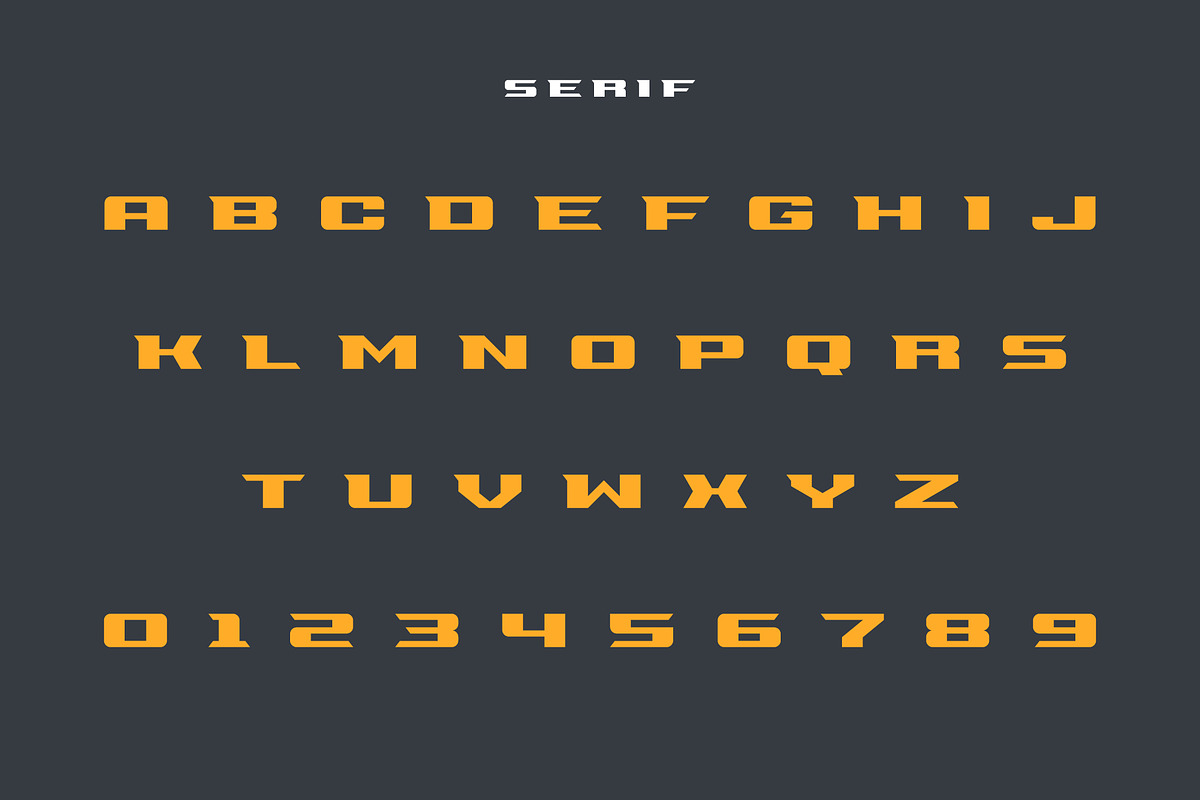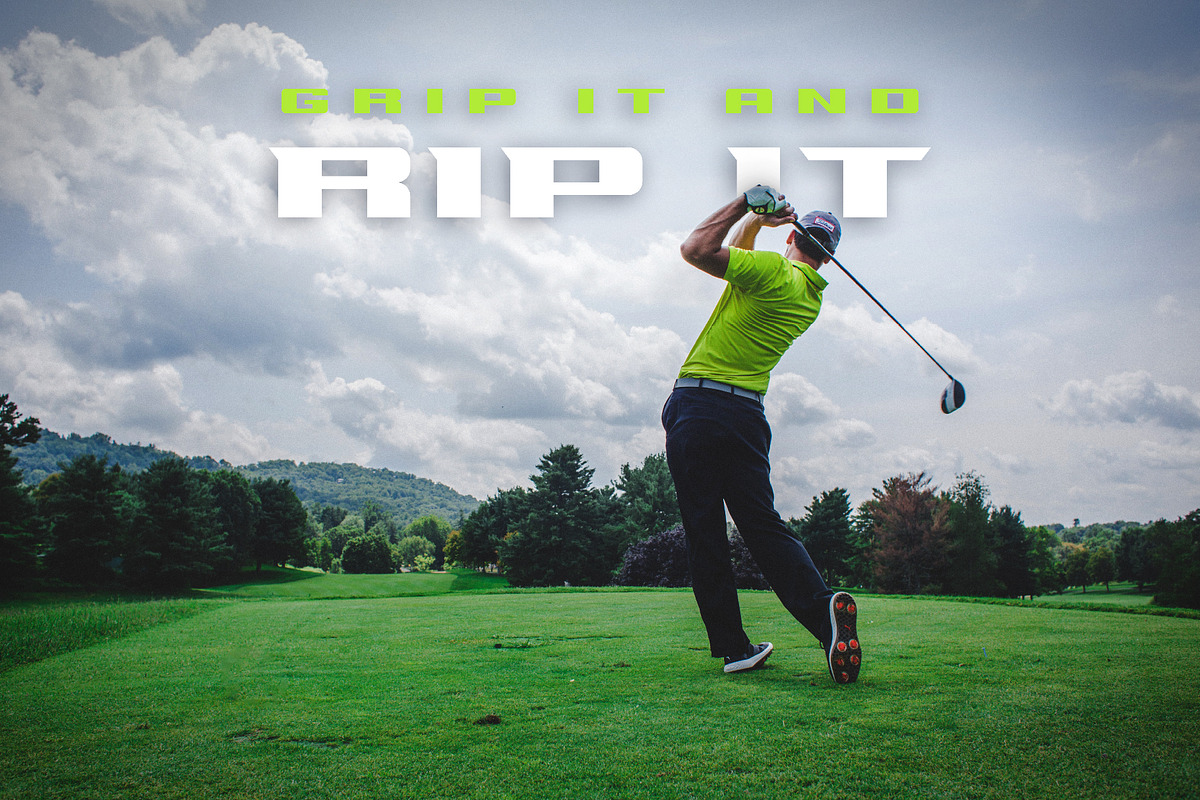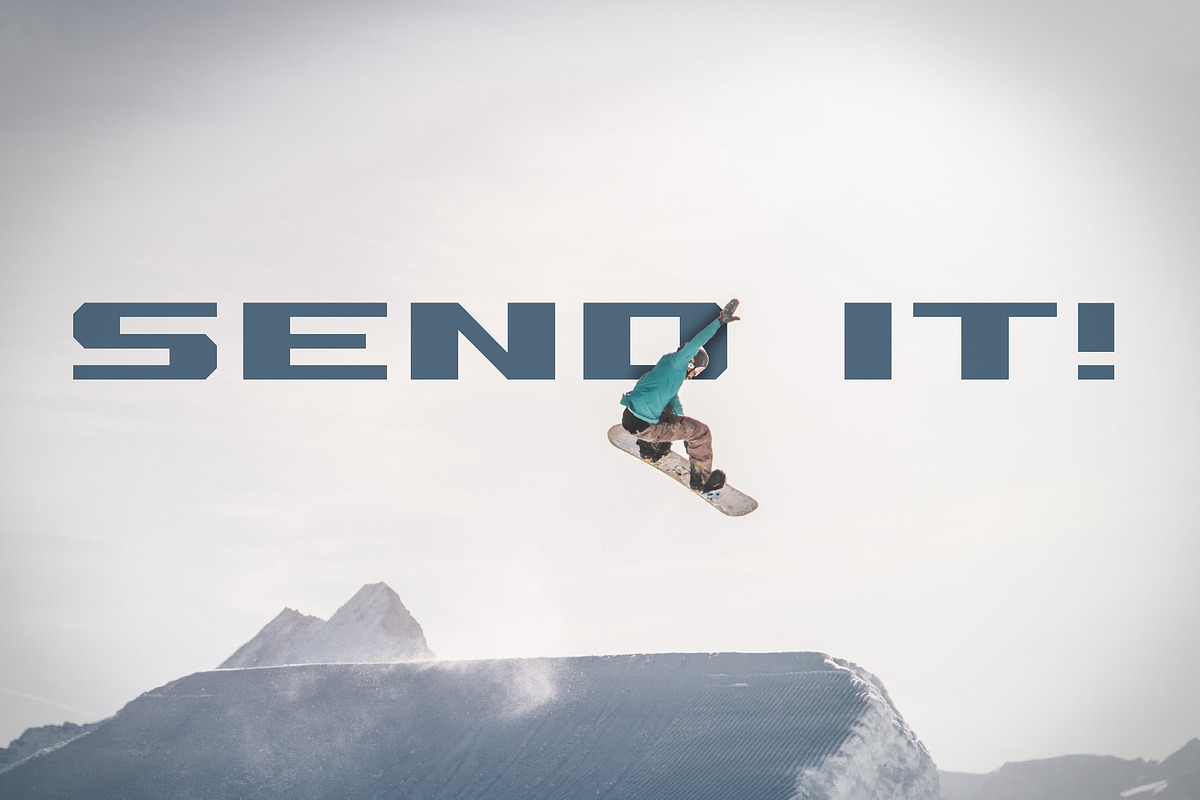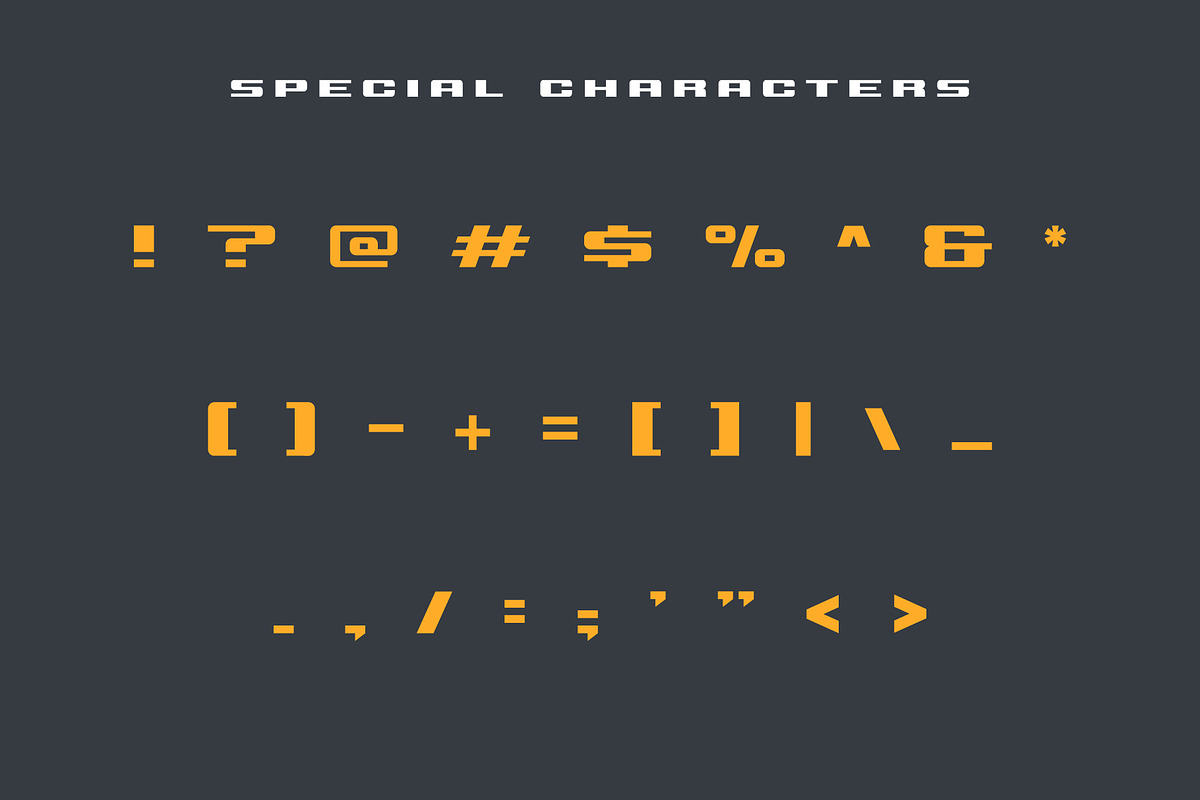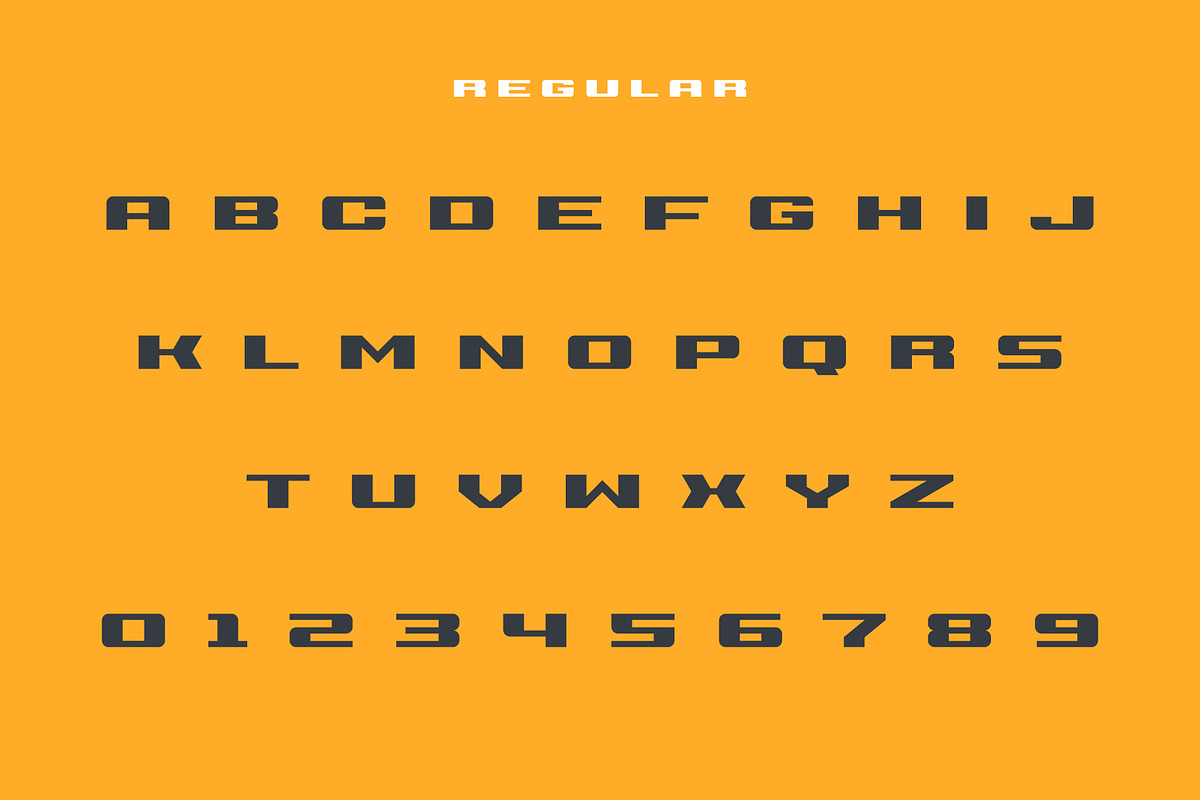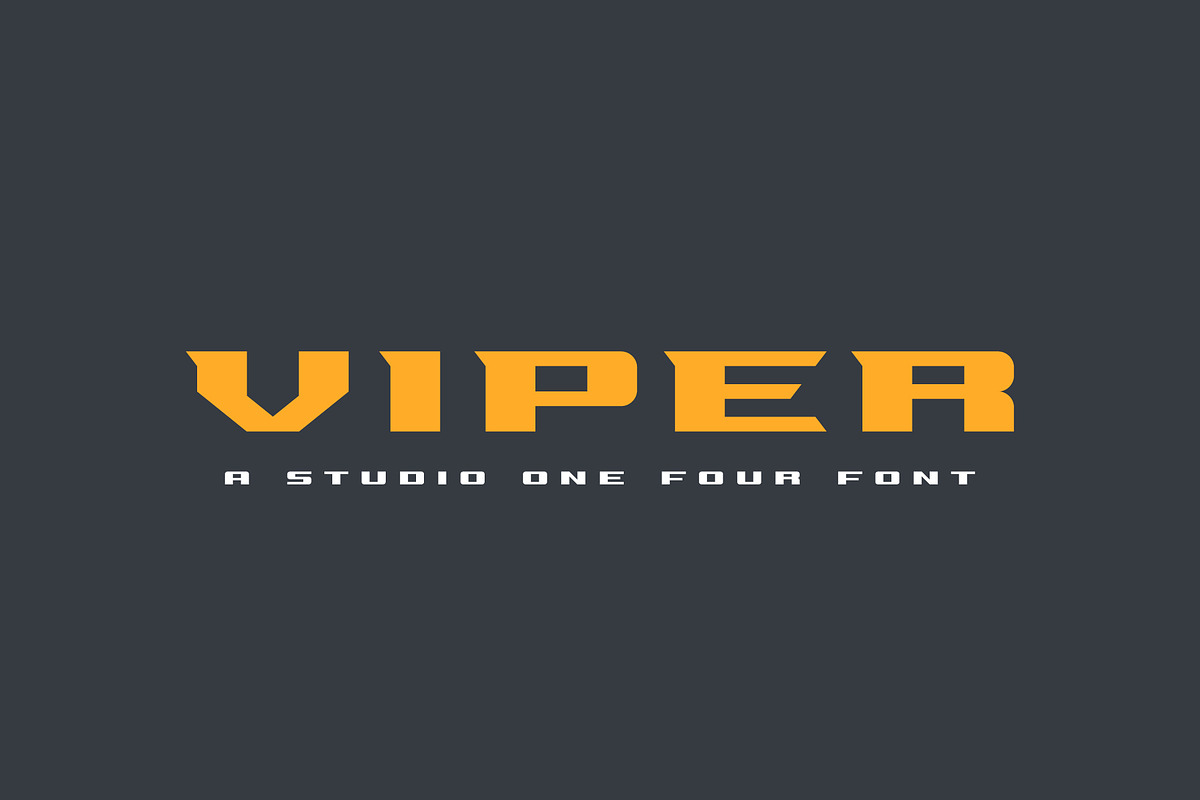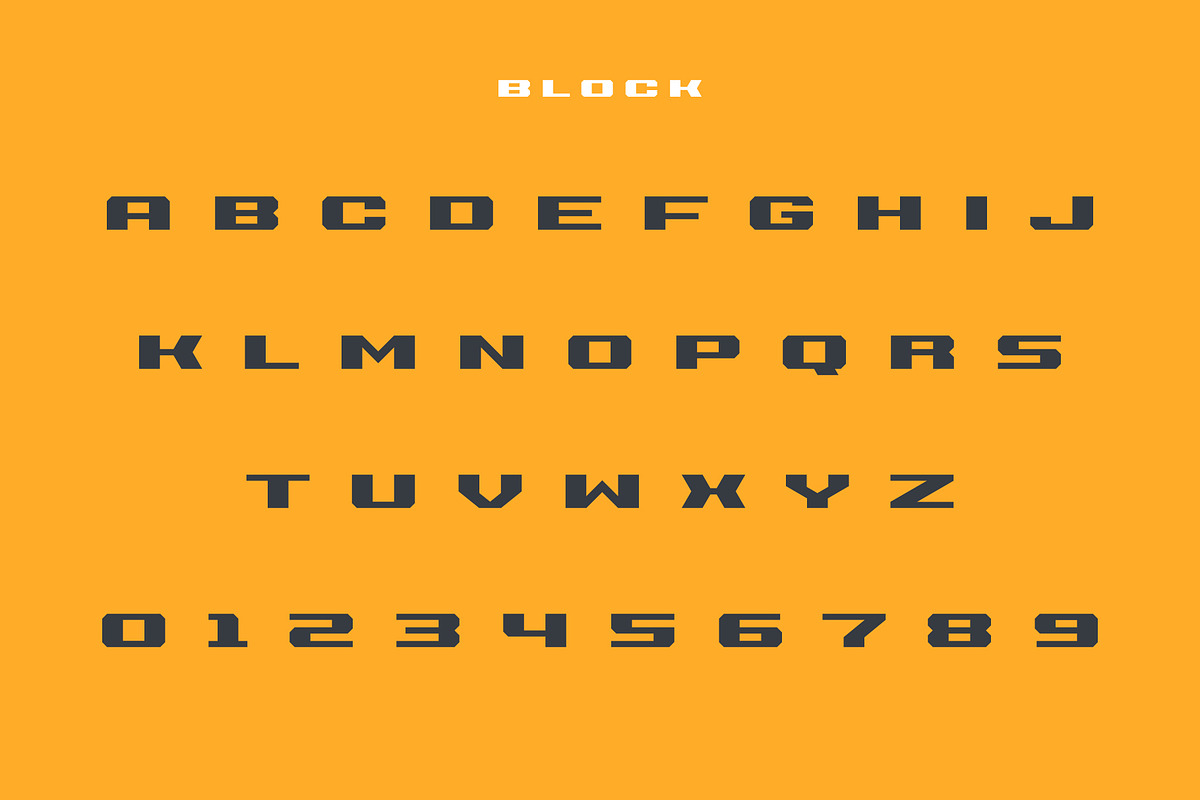
Viper
Viper is a wide-set font that comes in 3 styles: Regular, Serif & Block. If you are looking for a clean, bold, impactful font in multiple styles - Viper is for you!